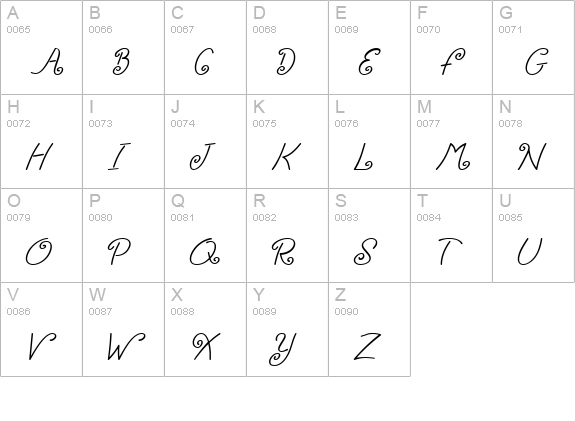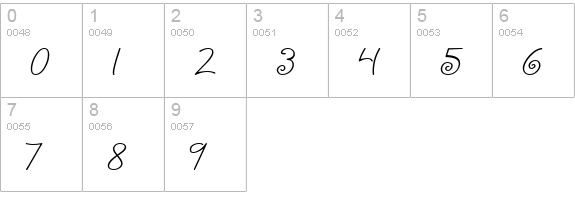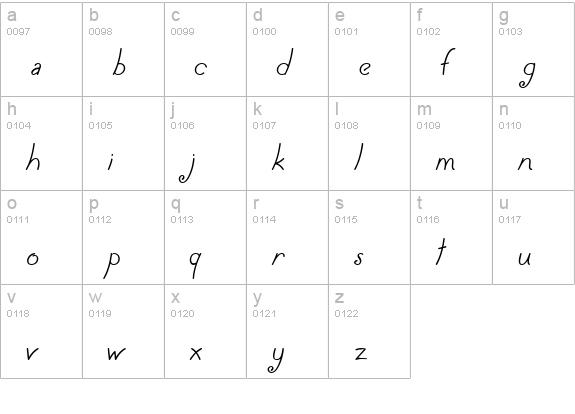
CK Limerick font is a beautiful and elegant typeface that exudes sophistication and charm. With its classic and timeless design, this font is perfect for adding a touch of elegance to any project. The clean lines and distinct curves of CK Limerick make it a versatile choice for a wide range of design applications, from invitations and wedding stationery to logos and branding. What makes CK Limerick even more appealing is that it is available for free download at FontsMarket.com. This means that you can easily access this stunning font and incorporate it into your projects without any cost. Whether you are a professional designer, a student, or simply someone looking to add a touch of class to your creations, CK Limerick is a fantastic choice that won't break the bank. Download CK Limerick today and elevate your designs with this exquisite typeface.